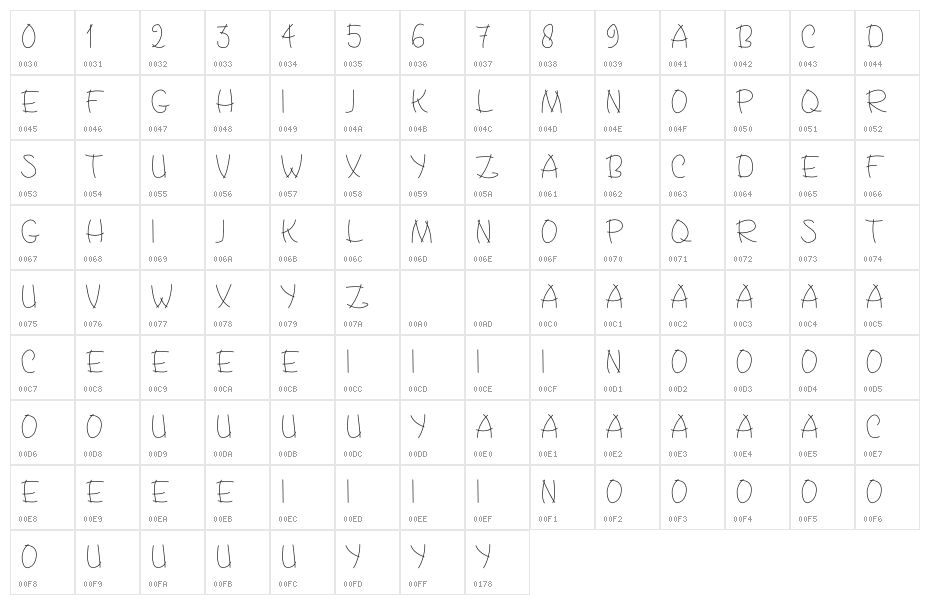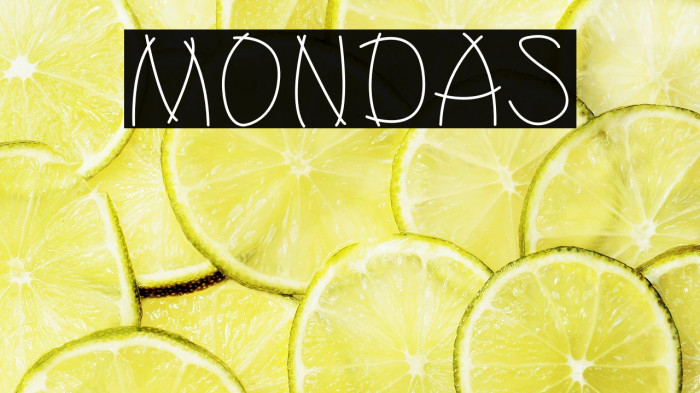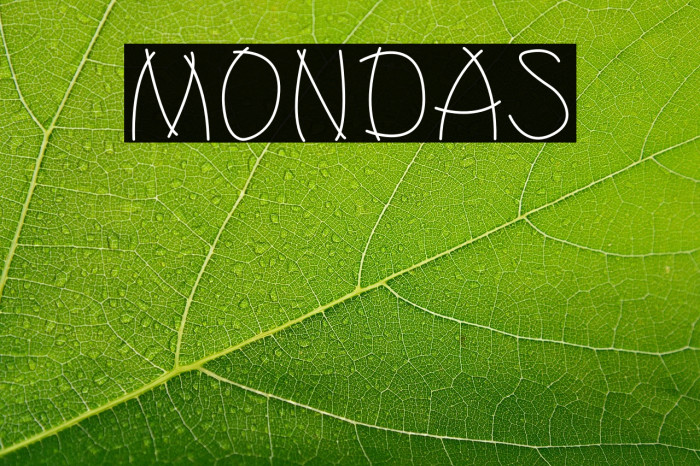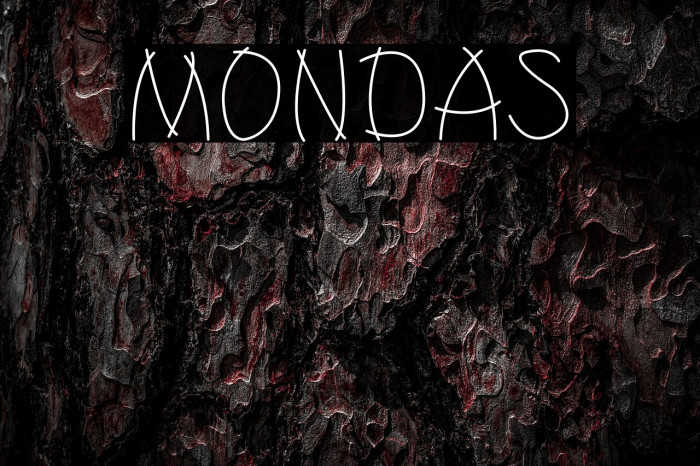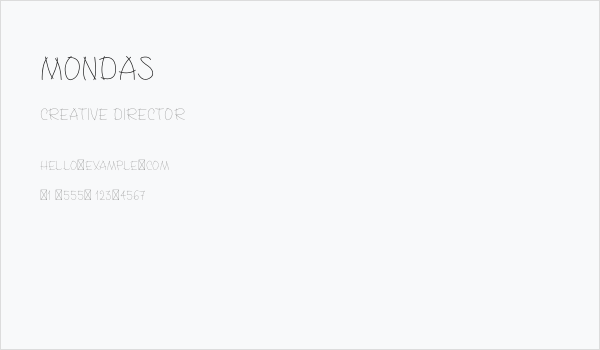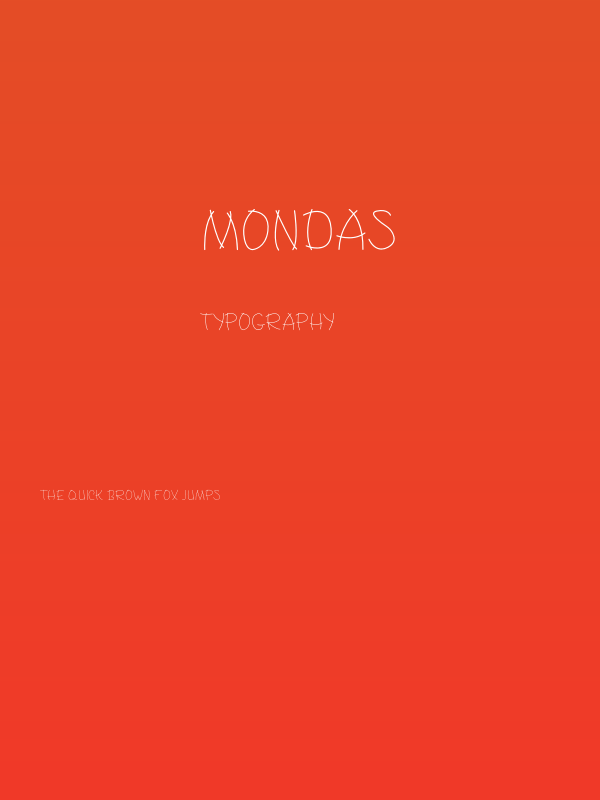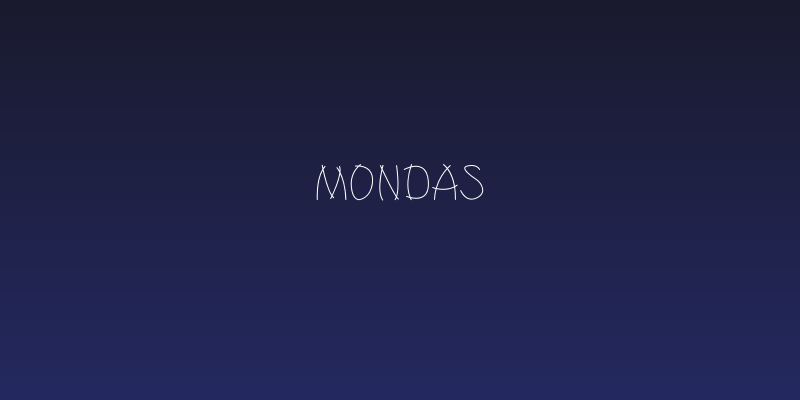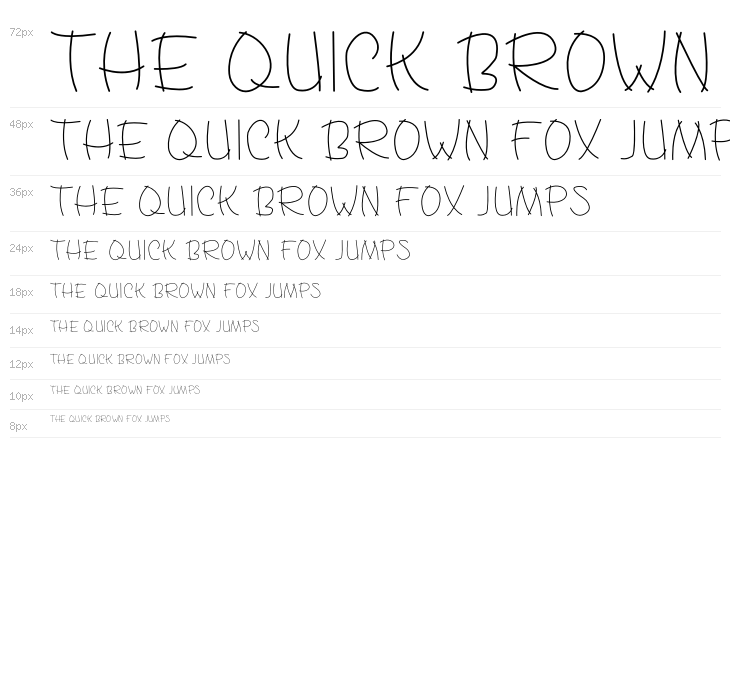
Mondas Font
Mondas Description
This font features a whimsical, hand-drawn style with playful curves and a slightly irregular baseline, giving it a casual and friendly appearance. The characters are thin and elongated, with unique, quirky details such as loops and swirls that add to its charm. The uppercase and lowercase letters maintain a consistent style, while the numerals are equally distinctive, complementing the overall aesthetic. The special characters are creatively designed, fitting seamlessly with the rest of the font. This font's artistic flair makes it stand out, perfect for projects that require a touch of personality and creativity.
| Proposed Projects | Ideal for greeting cards, children's books, creative posters, and playful branding. |